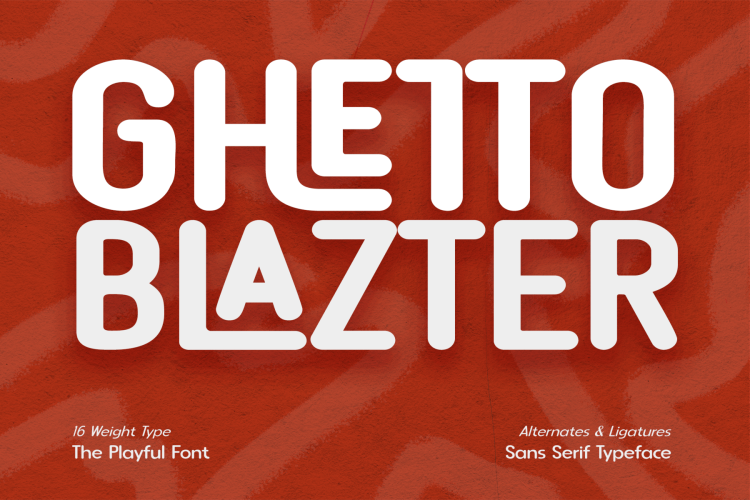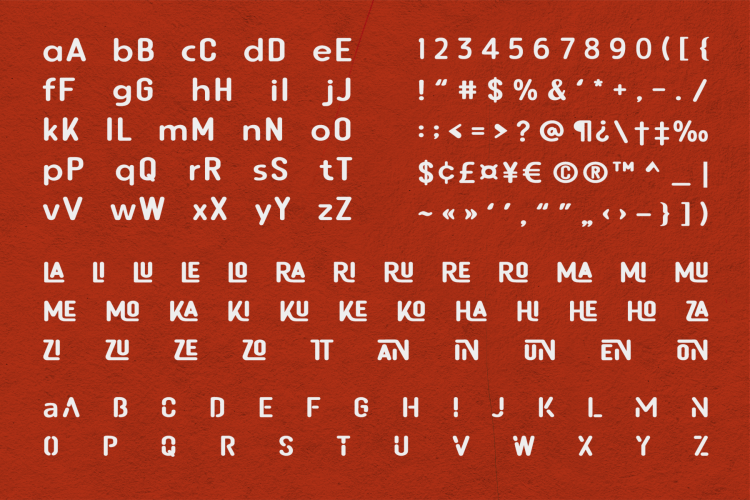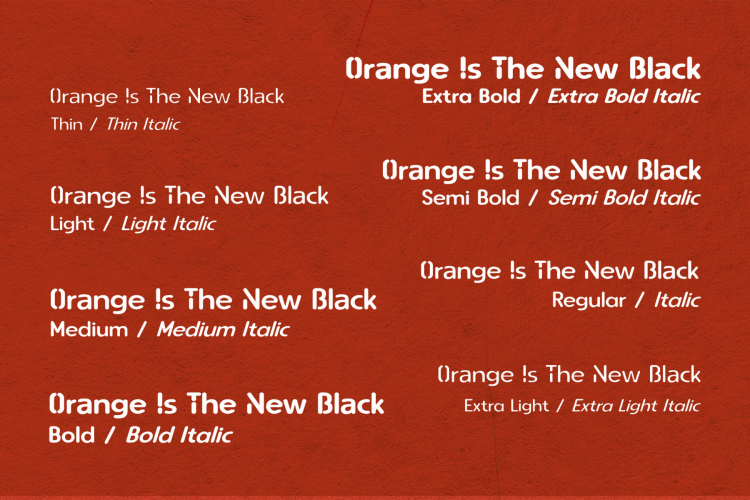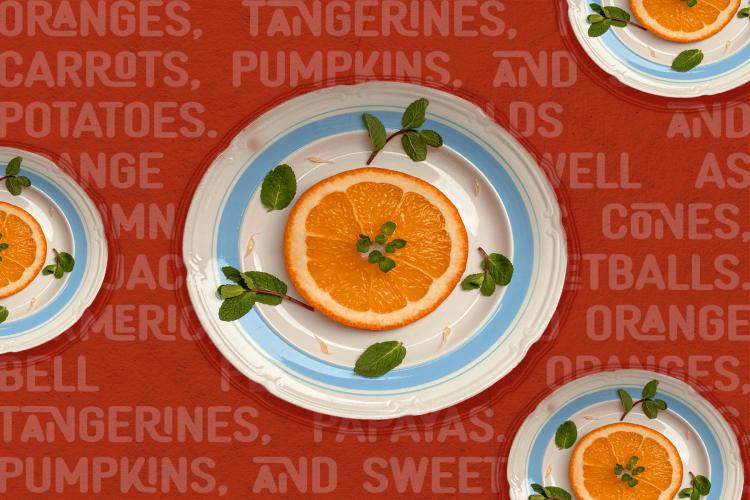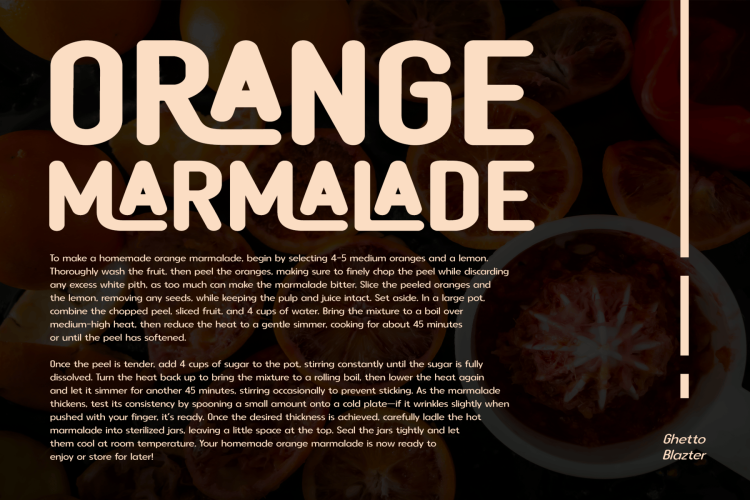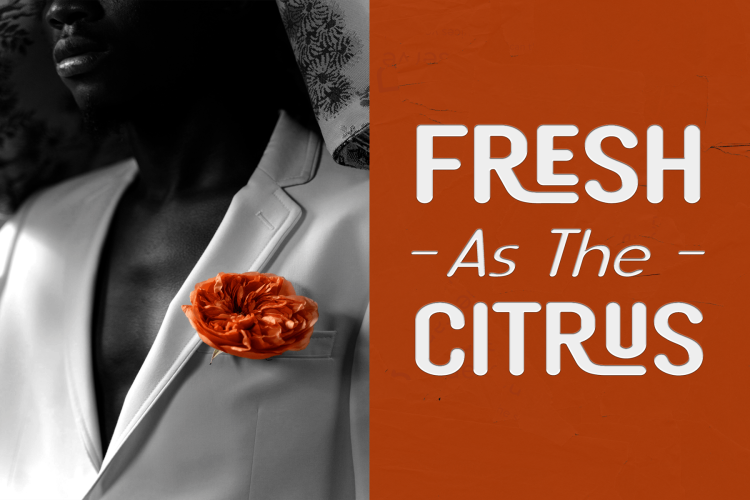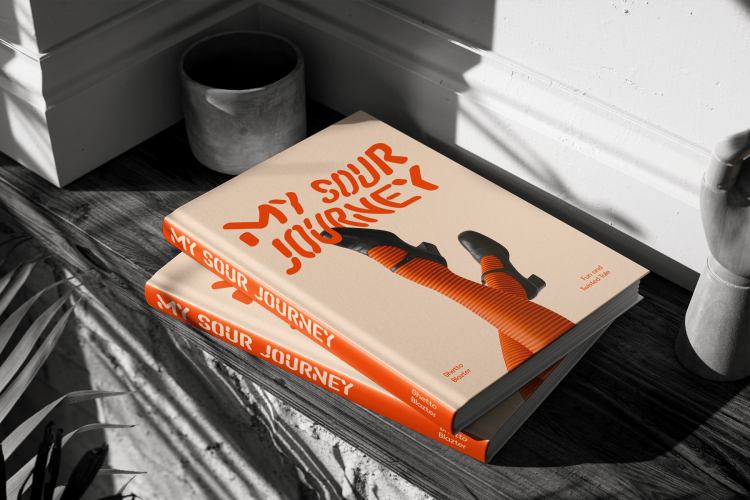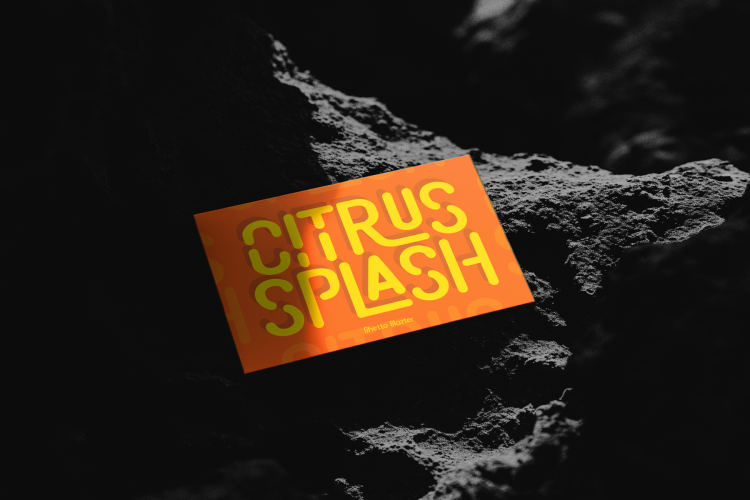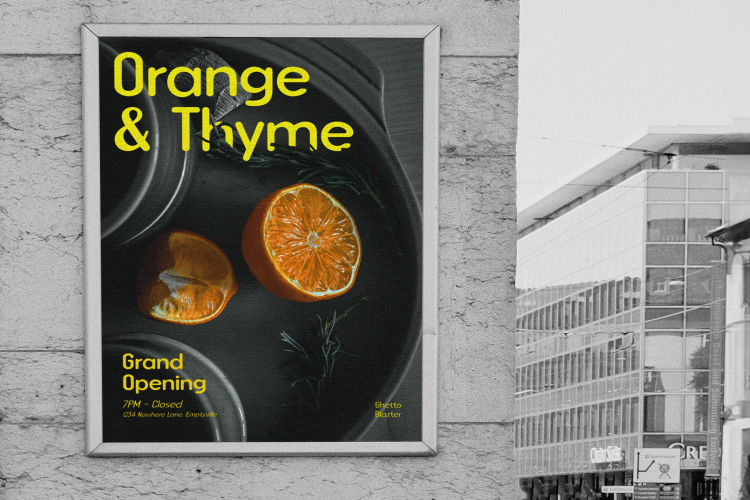
Ghetto Blazter is a versatile sans-serif font that blends modern aesthetics with a touch of urban flair. Its rounded corners and dynamic letterforms create a friendly and approachable atmosphere, perfect for a variety of design projects. Ghetto Blazter’s unique feature lies in its ability to interlock words, creating visually interesting and dynamic compositions. With a vast array of alternates and ligatures, the possibilities for customization are endless. The font’s rounded corners soften its appearance, making it more approachable and inviting. This, combined with its clean lines and contemporary design, ensures that Ghetto Blazter remains relevant in modern design trends.
- Thin, Regular, Medium, Semi Bold, Bold Weight Styles and Italic Style on Each Weight
- Including Alternate Glyphs